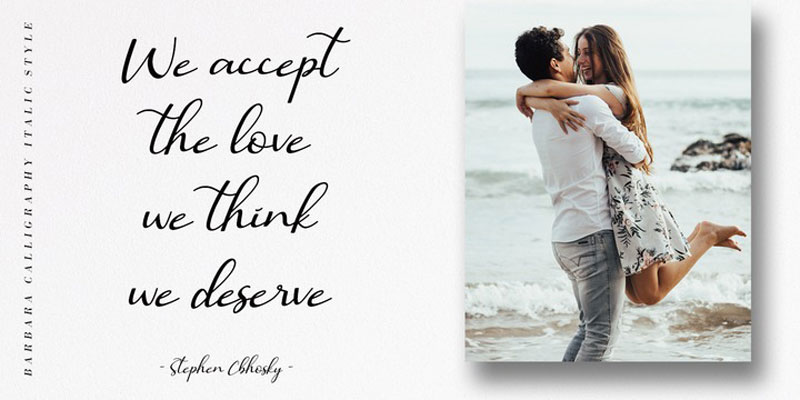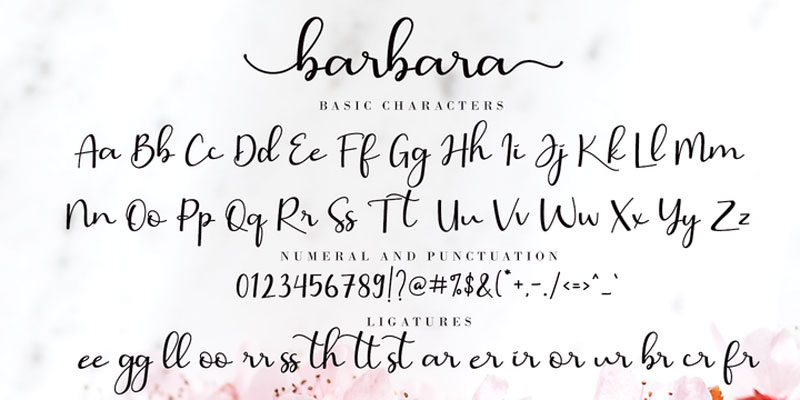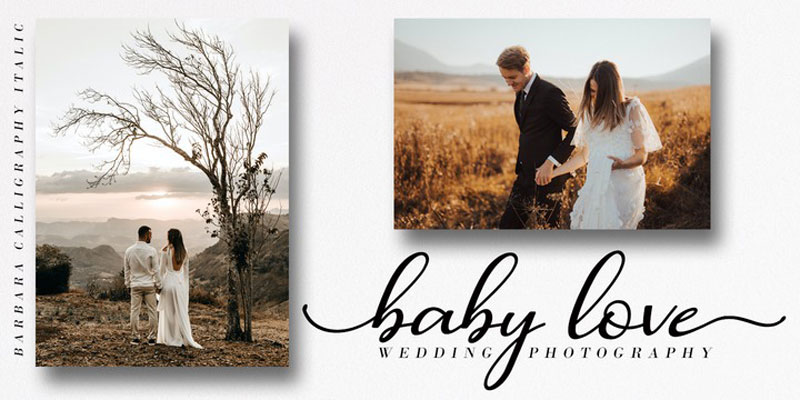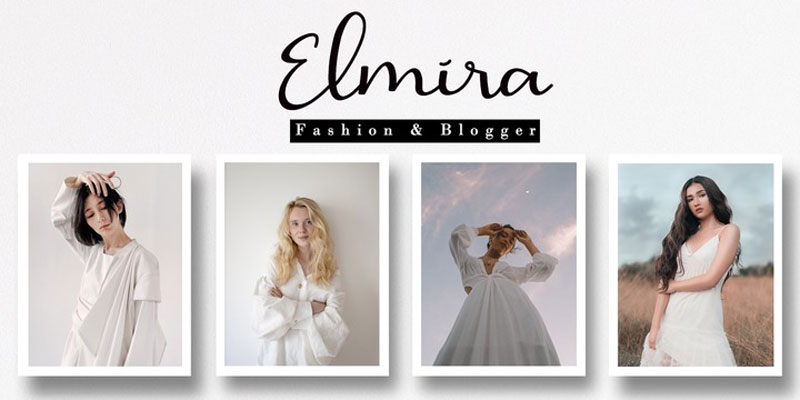
Barbara Calligraphy Font
Barbara Calligraphy is a beautiful script font. It has a classy, elegant, and modern look which can be used for logos, branding, invitations, stationery, wedding designs, social media posts, and every other design in need of a handwritten touch. Also, check out Claudio – Bouncy Display Font.
• Designers: Agung Eko Nugroho
• Publisher: AEN Creative Studio